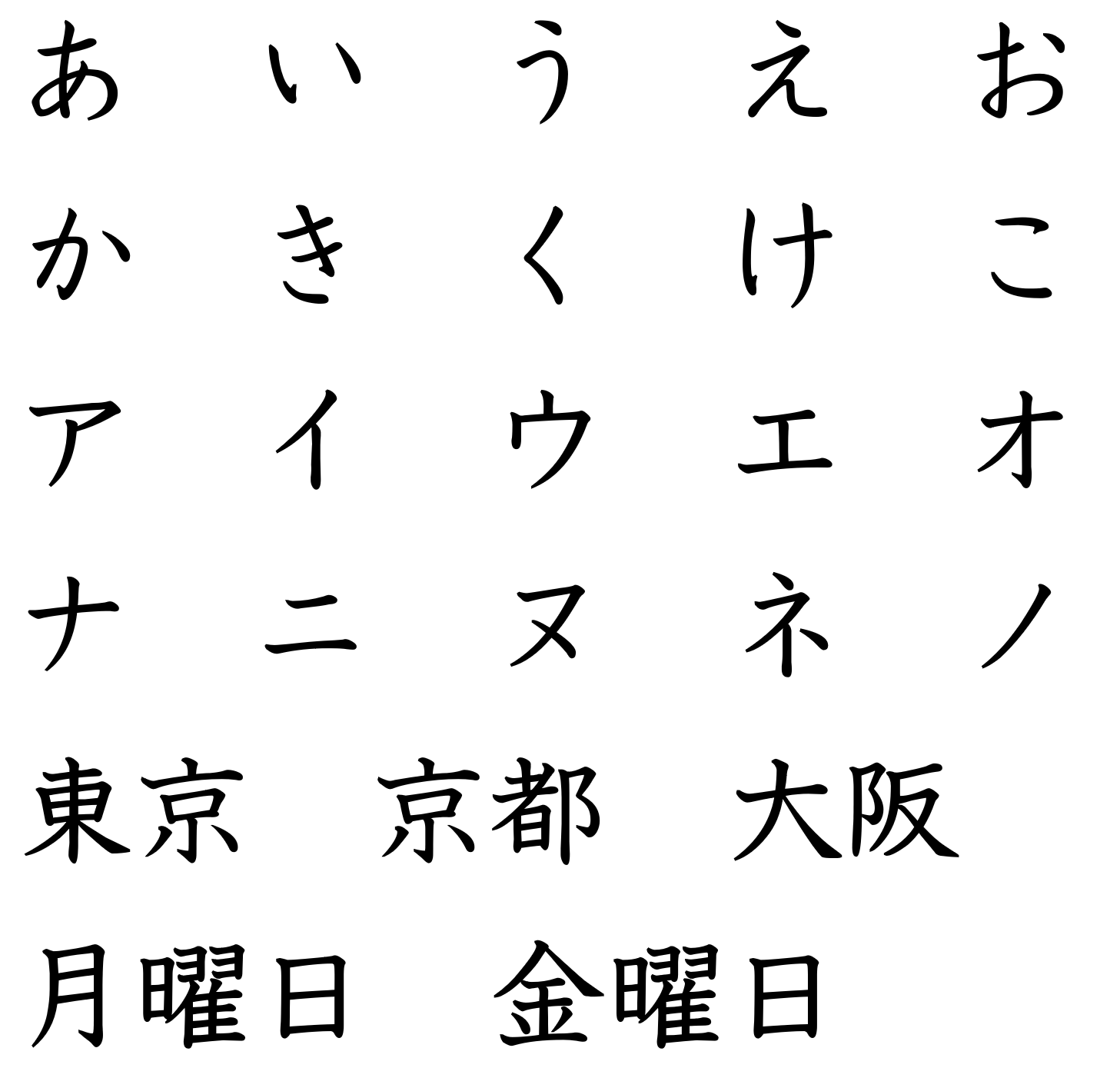
Japanese Font Depository
Possibly a bit of a long shot, but could anyone recommend good brush stroke fonts (similar to Japanese Serif Font - Hakusyu Gyosho | FREE KANJI FONTS) for macOS?
I sifted through a lot of fonts to find easy to read and also stroke correct like さ or き for example. I don’t really care for any of the Mincho fonts even though it’s the default on a lot of word processors.
The font used in the Genki books is really good. I was able to find a similar one, but Microsoft actually includes a fantastic Japanese font for readability. It called UD Digi Kyokasho. I made this my default Japanese font in Microsoft Word when I start typing Japanese. It’s built-in to Windows so nothing to download or install. Not sure if it’s installed on a Mac by default though. Below are some of my preferred fonts that I use with some screenshots.
UD Digi Kyokasho
Personally, I love this font. It’s my go to font for most of my Japanese typing. Easy to read, correct strokes, scales in size nicely, and looks great overall.
Biz UDP Gothic
This one is a nice block sans-serif style that is also one of the few maintains the correct stroke look. I consider it similar to the Helvetica/Arial font for English. I use this one frequently too. It’s available from Google and was created by Morisawa, Inc.
Epson
Not exactly sure the name of this font. Some sites have it listed as Epson Kaisho too. Microsoft Word lists it as EPSON 教科書体M. I don’t remember where I downloaded this font though. I think it was part of a font pack.
Klee
A Reddit post listed a possible clone of the Genki book font called Klee. It’s an open-source font on GitHub. The font actually supports multiple languages and tries to emulate a clean handwritten style.
FC教科書体
I was able to locate a copy of the fonts used in most grade school dictionaries. Similar to the Epson one above, but there some differences that probably make this font better since the connecting strokes are a bit smoother. Note: the sample below is in bold. The lines are a lot thinner in the regular mode.
Sample picture I took for comparison:
I wonder if we can use this font UD Digi Kyokasho with Jitai script.